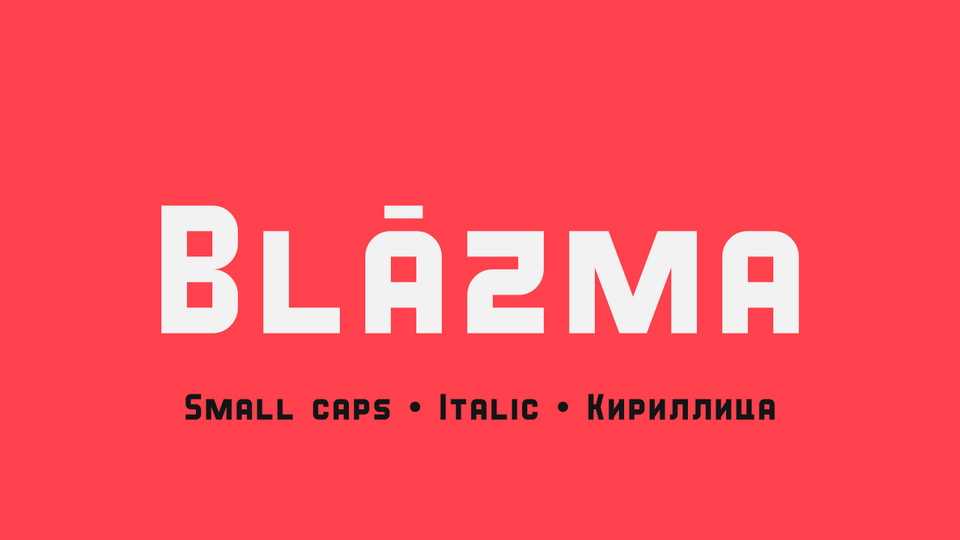
Download Blazma font, a geometric small caps sans serif typeface with a strong but friendly impression. Blazma typeface contains 2 styles (Regular, Italic) and 671 glyphs, including Latin and Cyrillic support.